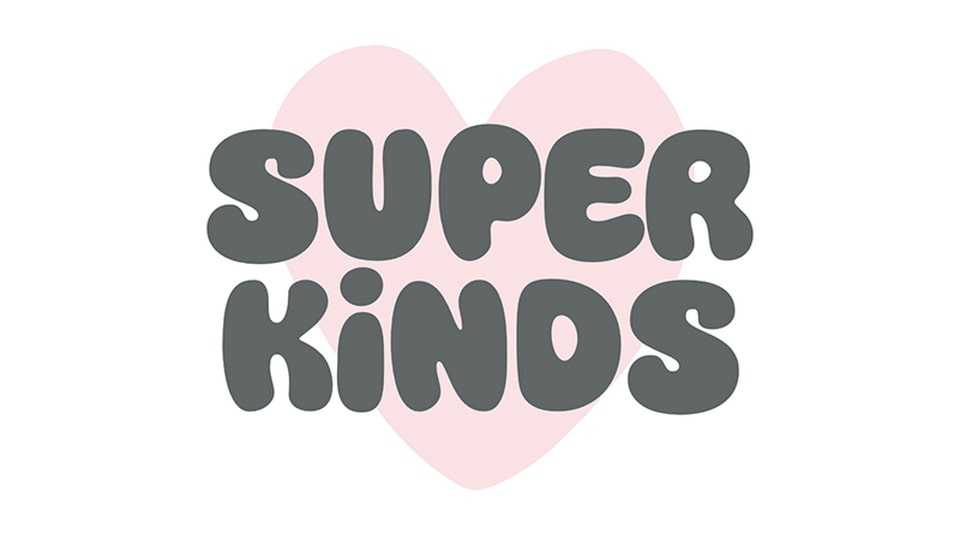
Download Super Kinds font, a bold and cute hand-crafted typeface with soft, rounded edges that give it an irresistibly friendly and approachable feel.